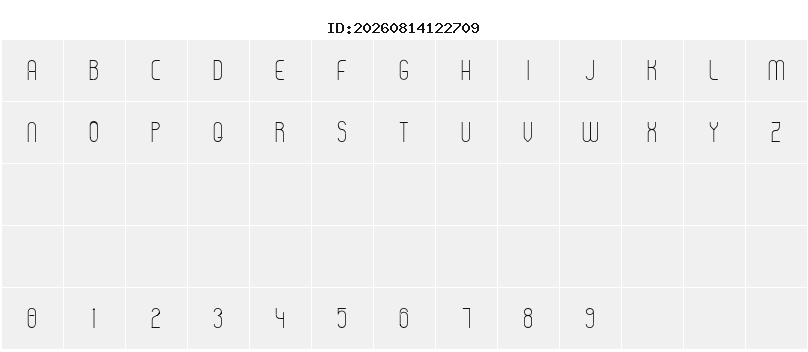
• Font Name: Stromlinie
About Stromlinie.ttf
Stromlinie.ttf is a modern, elegant sans-serif font designed for ultimate readability and visual harmony. Perfect for branding, headlines, web design, and print materials.